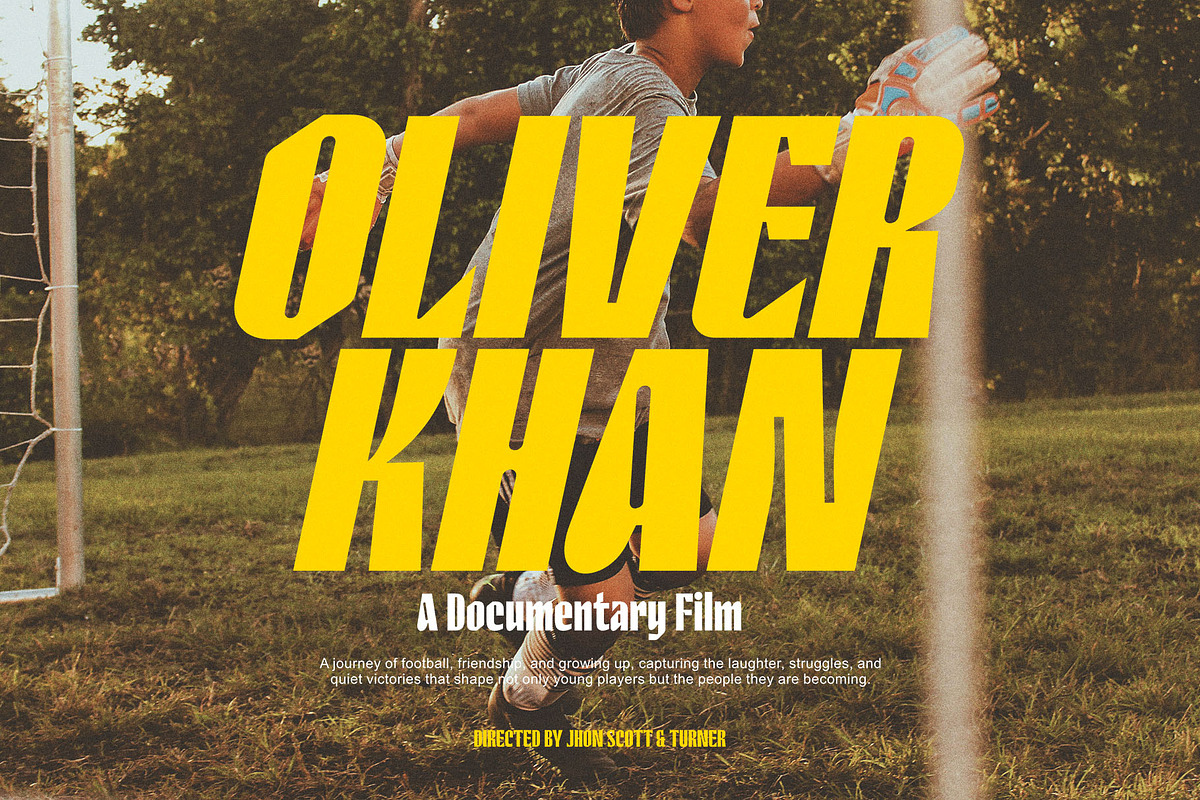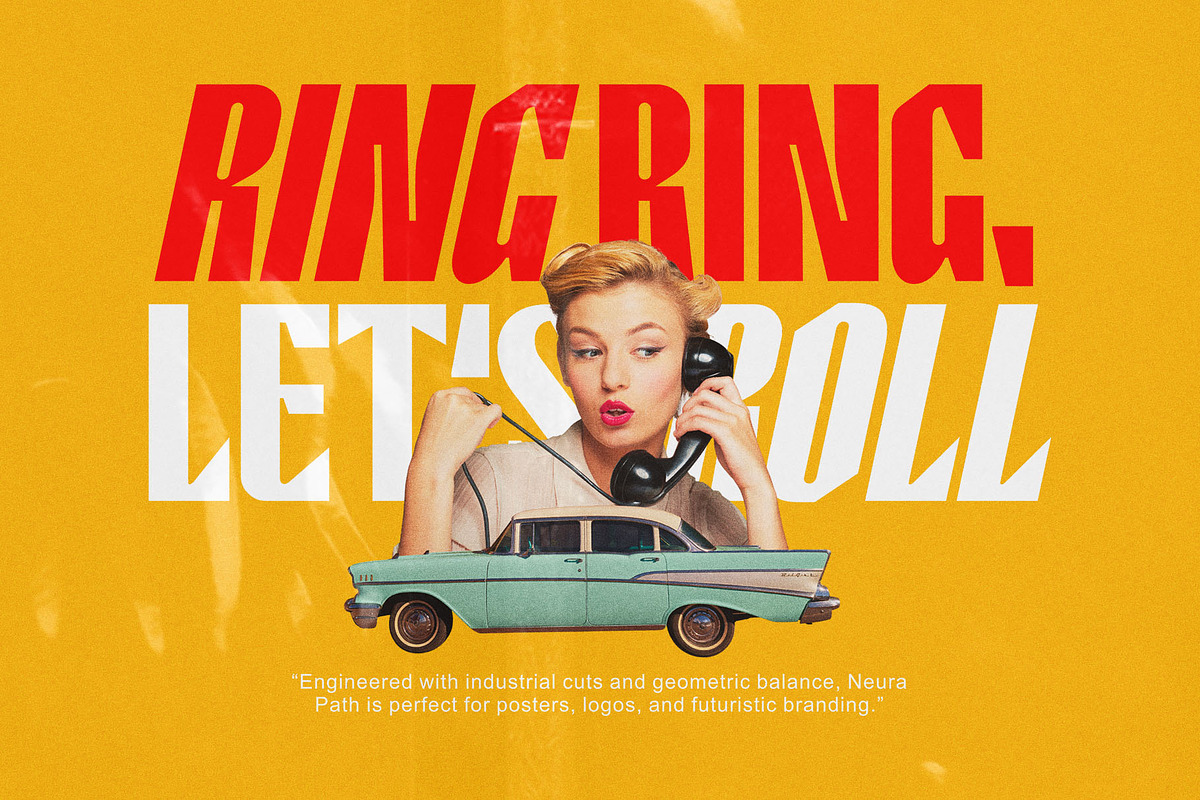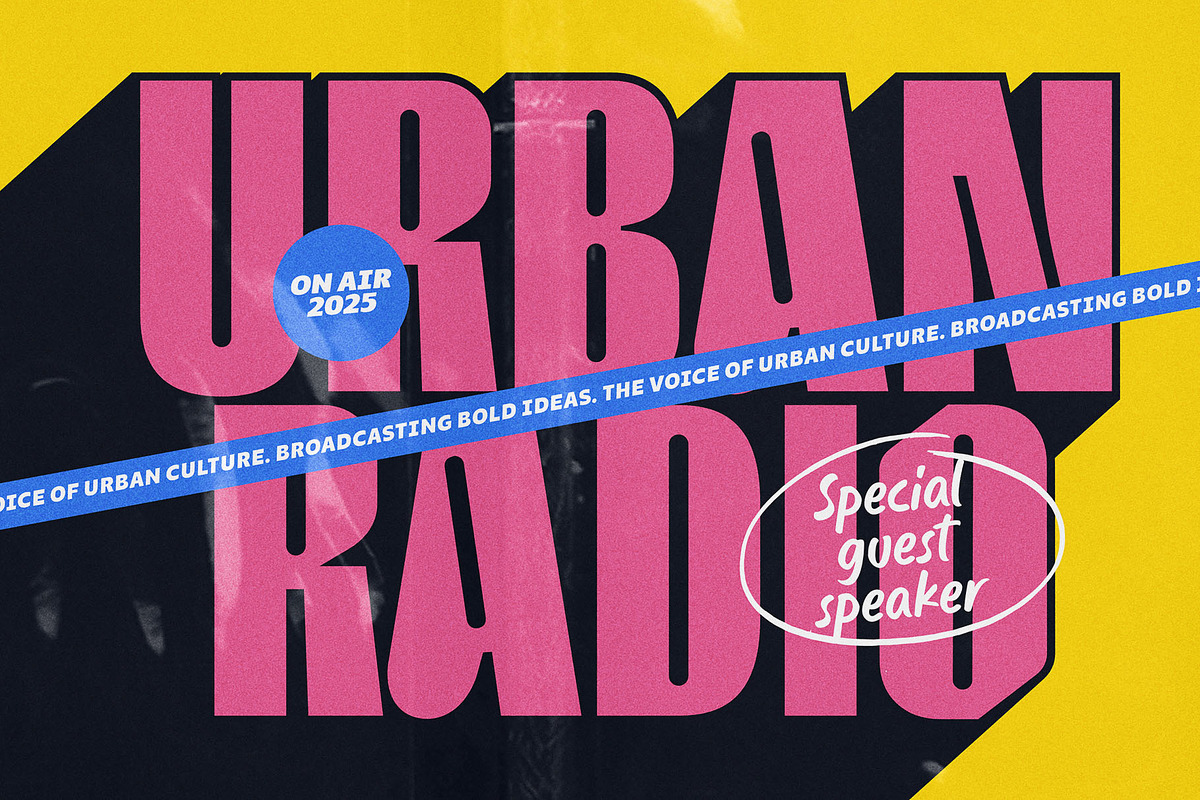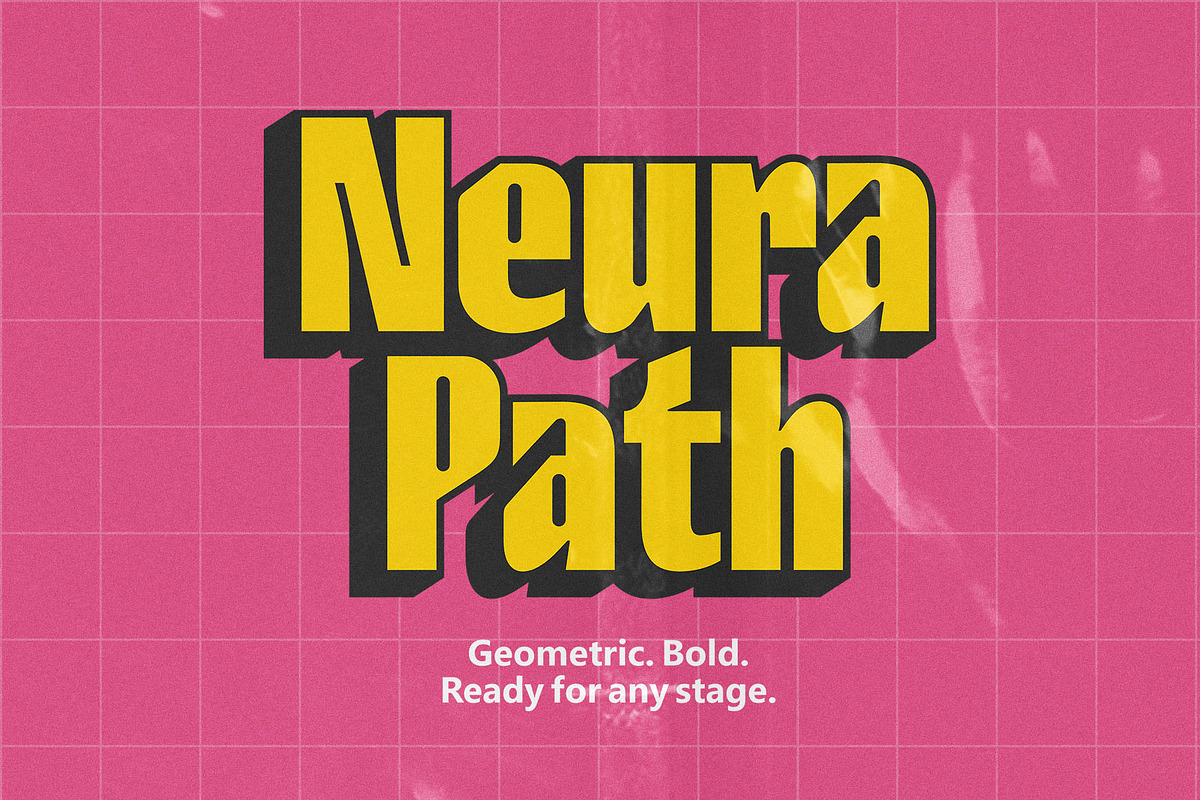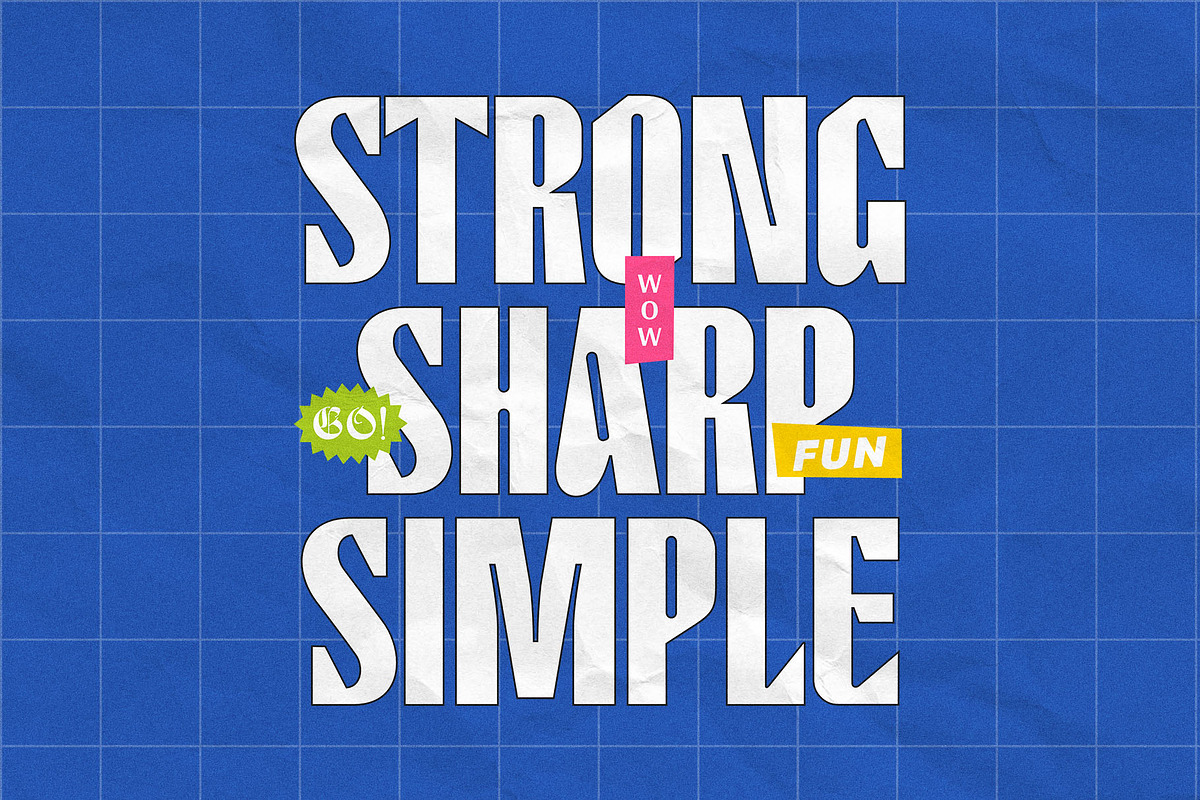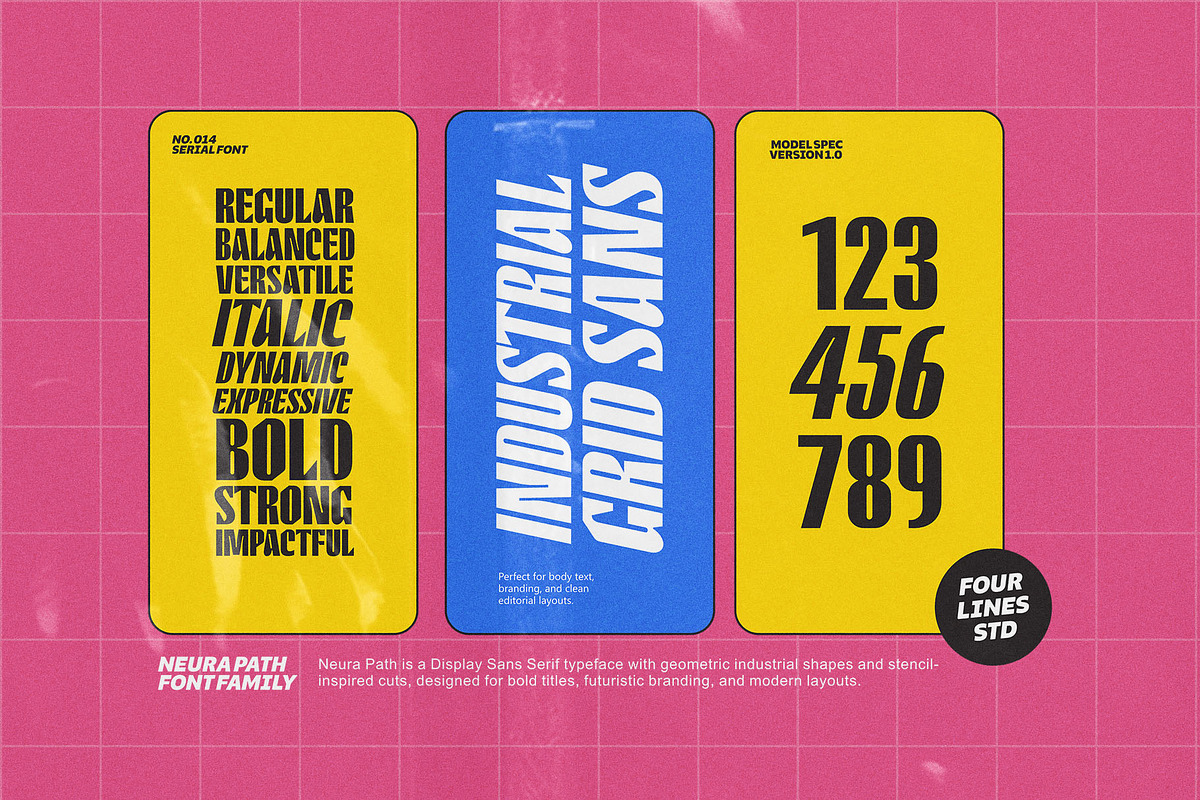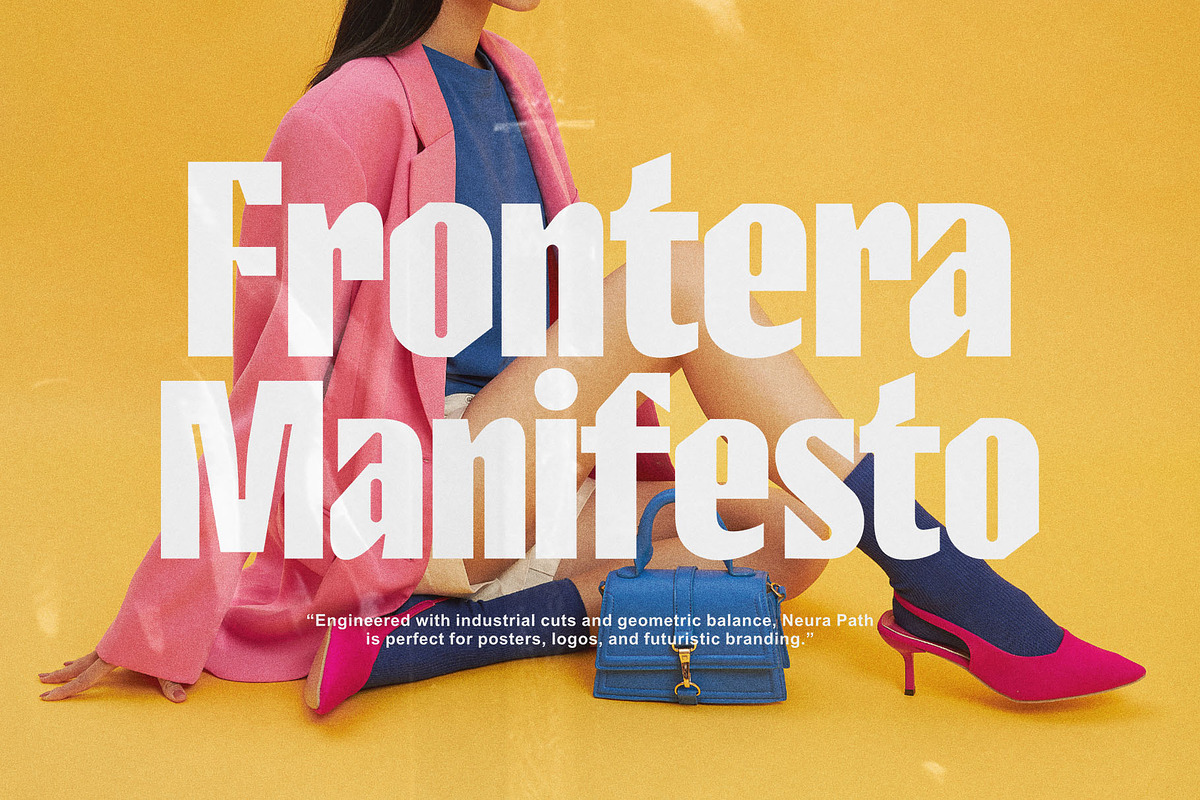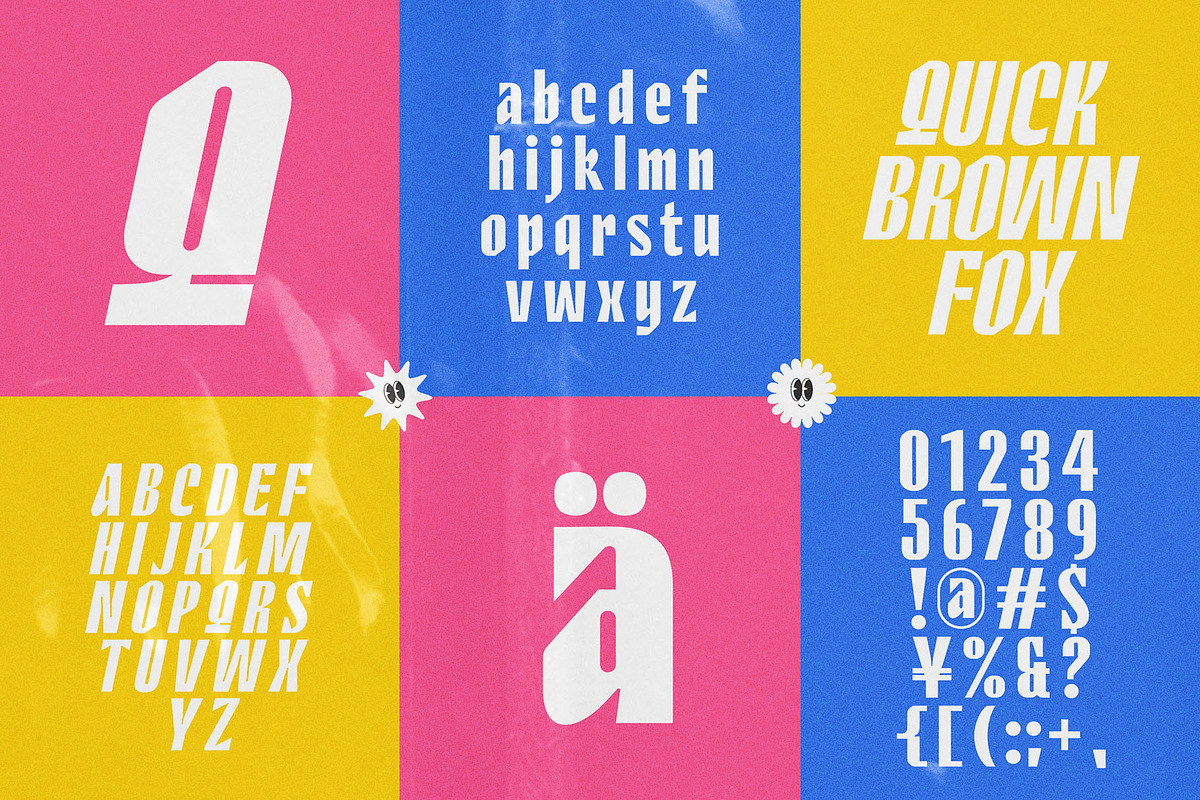
Neura Path – Industrial Display Sans
Neura Path is a bold display sans serif that combines geometric industrial shapes with stencil-inspired cuts. It’s engineered to make an impact—balancing technical precision with a fun, energetic vibe. Perfect for bold titles, editorial design, branding, and creative showcases. The strong forms and unique letter details give Neura Path a futuristic edge while remaining versatile and highly readable. From fashion posters and product packaging to digital campaigns and experimental layouts, this typeface adapts seamlessly to any project that demands attention.